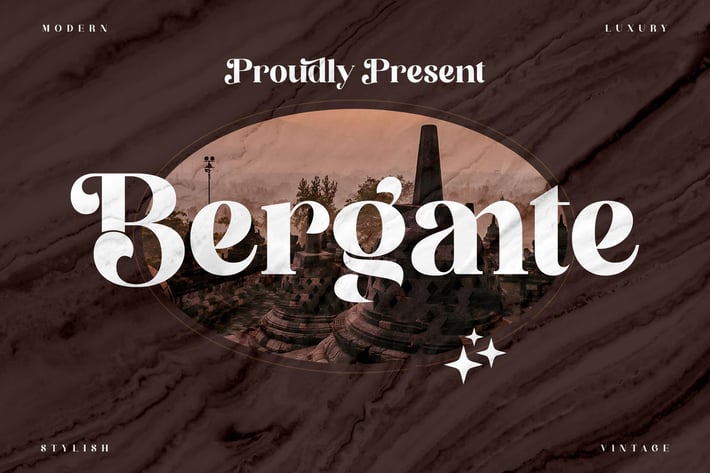
Bergante Classy Serif Font
Introducing Bergante, a modern and elegant serif typeface designed to elevate your creative projects. With its bold curves and stylish details, this font blends luxury and vintage charm, making it a versatile choice for both digital and print designs. Perfect for creating timeless aesthetics, [Font Name] brings sophistication to any design.
+ Stylish serif design with unique curves and accents
+ Works beautifully for both modern and vintage themes
+ Uppercase, lowercase, numerals, and punctuation included
+ Elegant ligatures for enhanced creativity
+ Branding and logo design
+ Posters and editorial layouts
+ Invitations and stationery
+ Social media graphics
+ Packaging and promotional designs
Bring luxury and timeless elegance to your design projects with [Font Name] — the perfect serif font for a modern yet classic look.
+ Stylish serif design with unique curves and accents
+ Works beautifully for both modern and vintage themes
+ Uppercase, lowercase, numerals, and punctuation included
+ Elegant ligatures for enhanced creativity
+ Branding and logo design
+ Posters and editorial layouts
+ Invitations and stationery
+ Social media graphics
+ Packaging and promotional designs
Bring luxury and timeless elegance to your design projects with [Font Name] — the perfect serif font for a modern yet classic look.